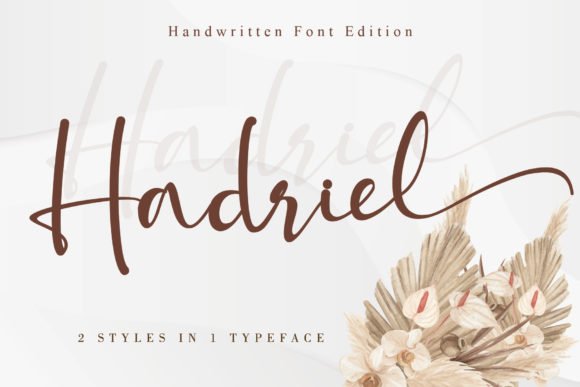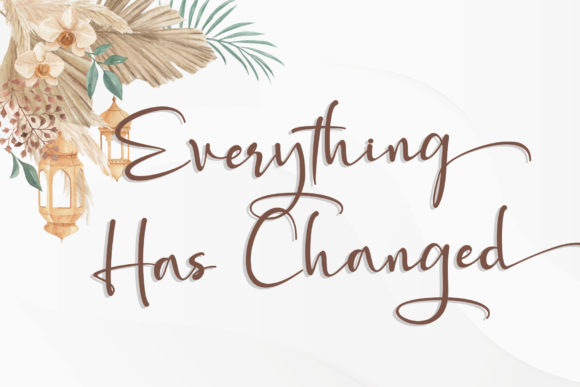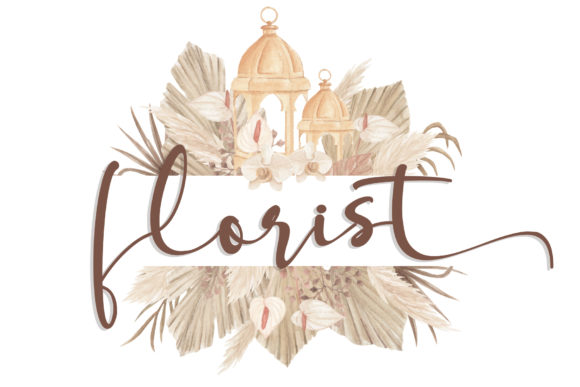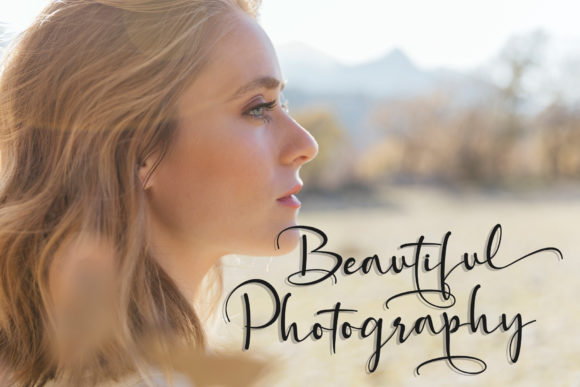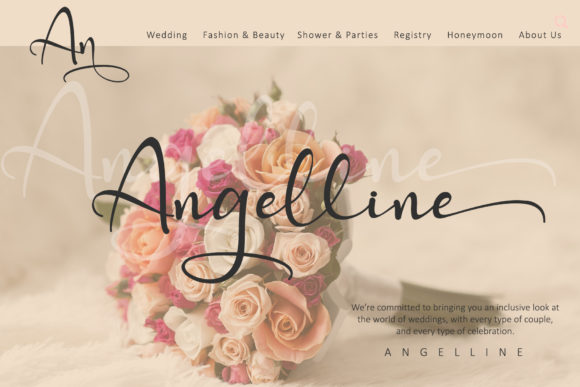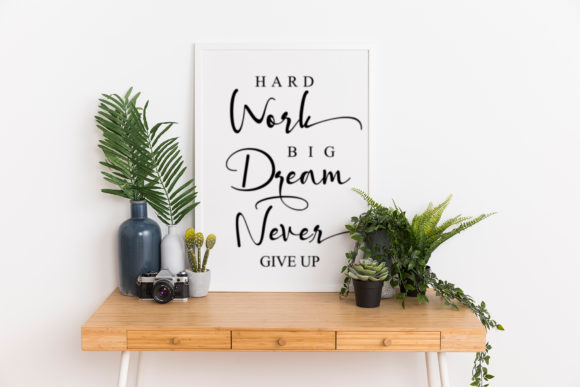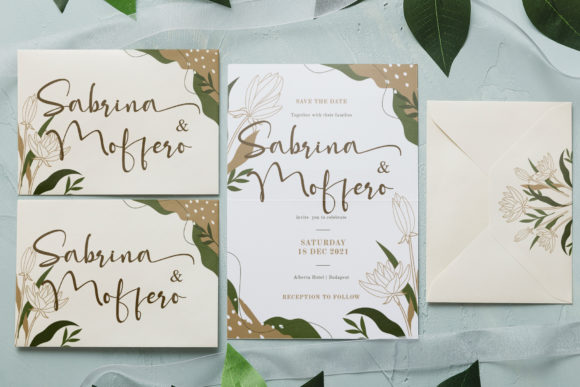
Unlock the Magic of Handwritten Design with the Hadriel Font
Have you ever found yourself scribbling down a beautiful handwritten message, only to wish you could capture its essence on paper? That’s exactly the feeling you’ll get when working with the stunning Hadriel Font. This gorgeous handwritten font is designed to bring a touch of elegance and sophistication to your designs.
With its varying baseline, smooth lines, and gorgeous glyphs, the Hadriel Font is a must-have for any designer looking to add a personal touch to their work. Whether you’re creating wedding invitations, beautiful stationery art, or eye-catching social media posts, this versatile font is sure to impress. And with its PUA encoding, you’ll have access to all the glyphs and swashes you need to bring your designs to life.
Hadriel Font Key Features
- Font Family: Hadriel is a calligraphic script font designed for use in various contexts, including digital and print media.
- Size: The font contains a wide range of sizes and styles, making it suitable for various applications, from small text to large titles.
- Resolution: Designed to be highly legible at various resolutions, from low to high DPI (dots per inch), making it ideal for use in digital media and printing.
- Unique Characteristics: Hadriel features a beautiful, elegant script style with intricate details and flourishes, making it a great choice for creative and artistic projects.
Hadriel Font Review
Hadriel Font is a beautiful script font that I had the pleasure of working with. ✨ One thing that stands out about this font is its elegant and refined feel. It’s perfect for creating a sense of sophistication and luxury in your designs. The font is highly legible, making it great for body text and titles alike.
Another thing I love about Hadriel Font is its versatility. ✨ It’s suitable for a wide range of projects, from wedding invitations to corporate branding. The font also comes in various weights, allowing you to adjust the level of elegance and formality to suit your needs.
While Hadriel Font is a great choice for many projects, there are some limitations to consider. ⚠️ For one, the font may not be suitable for very small text sizes, as the letters can become difficult to read. Additionally, the font’s delicate nature means it may not be the best choice for projects that require a bold or edgy look.
Overall, I’m really impressed with Hadriel Font. It’s a beautiful, elegant font that’s perfect for a wide range of projects. While it may have some limitations, the benefits far outweigh the drawbacks. I would definitely recommend Hadriel Font to designers looking for a sophisticated and refined script font.
Recommendation
If you’re looking for a beautiful script font for your next project, I would highly recommend Hadriel Font. Just be sure to consider the limitations mentioned above and use it in the right context.
Practical Application Guide: Hadriel Font
The Hadriel font is ideal for:
- Editorial and literary publications
For optimal results, use the Hadriel font in combination with elegant graphics and imagery to create a cohesive and sophisticated design.
Alternatives to Hadriel Font for Designers
Playfair Display is an elegant and luxurious serif font, perfect for high-end designs, luxury brands, and formal invitations. It features intricate details and a classical feel, making it ideal for projects that require sophistication and refinement. Compared to Hadriel Font, Playfair Display has a more refined and ornate look, making it better suited for formal and elegant designs.
Great Vibes is a beautiful and elegant script font, ideal for creating a sense of sophistication and elegance. It features a flowing and cursive design, making it perfect for projects that require a touch of luxury and refinement. Compared to Hadriel Font, Great Vibes has a more fluid and cursive design, making it better suited for projects that require a sense of movement and flow.